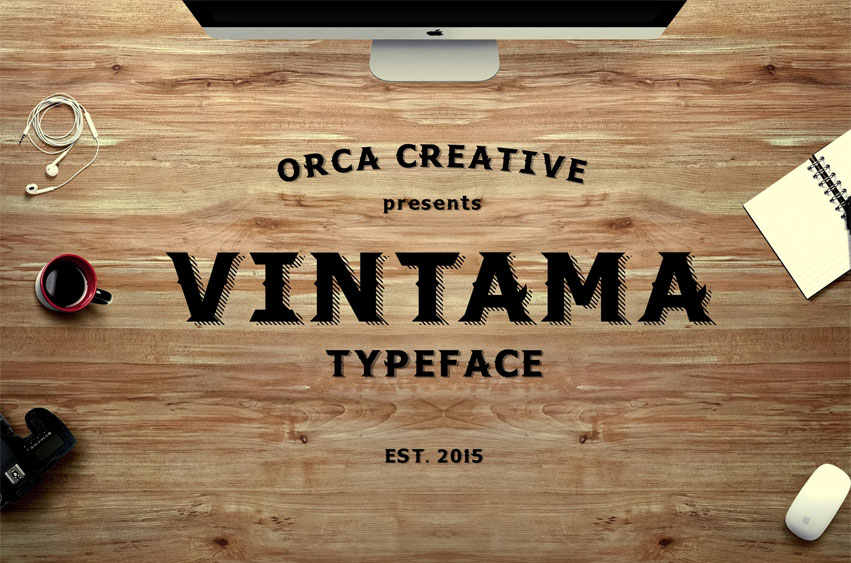
Vintama Font
Vintama Font is a serif typeface with vintage and bold appereance. Suitable for any graphic design promotion things, like poster, t-shirt, brochure or any other else. Best combination with some vintage and old-fashioned things.
Available in two version, the regular one and the shadowed one for more artistic look. Get extra logo freebies inside!